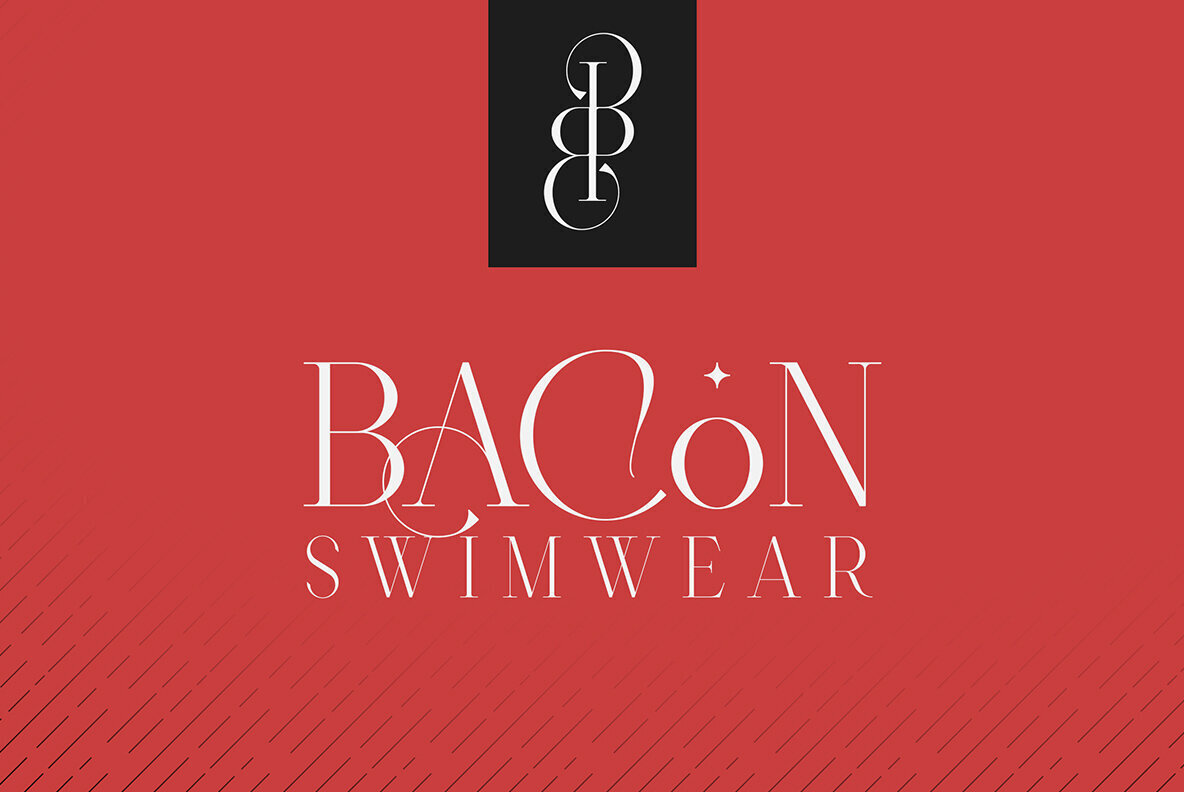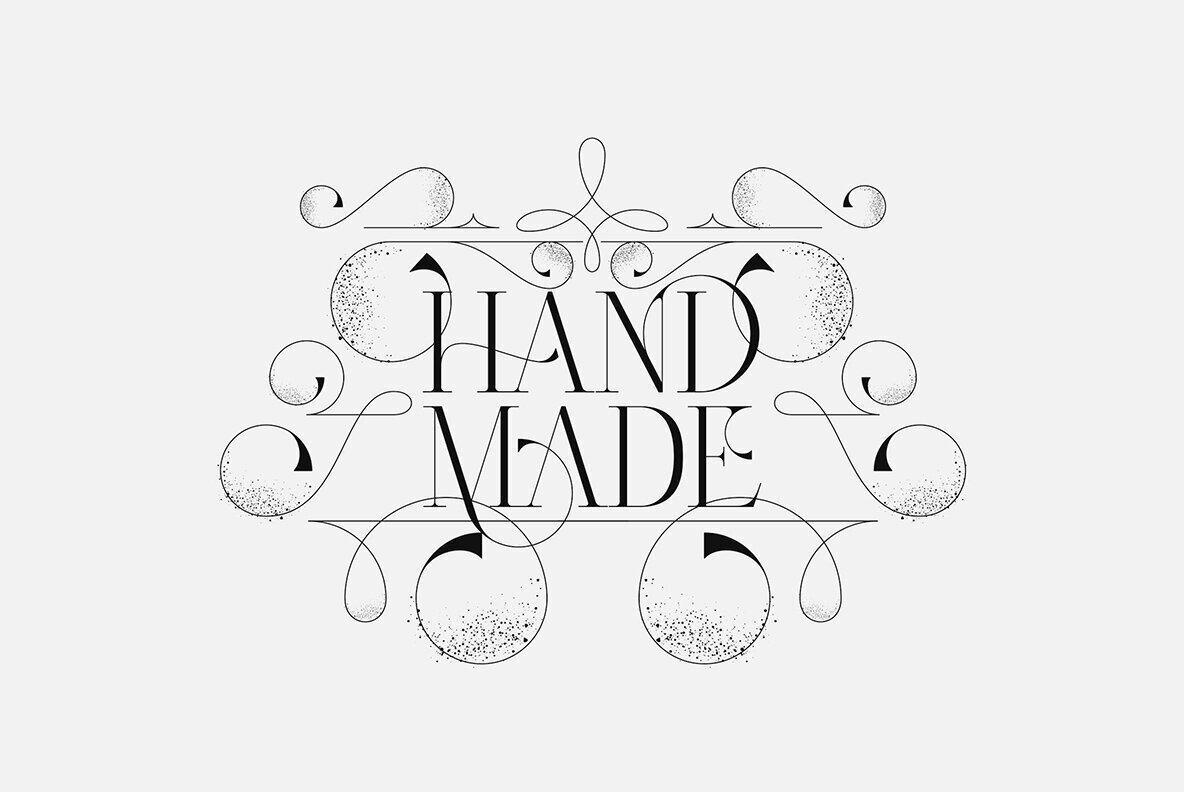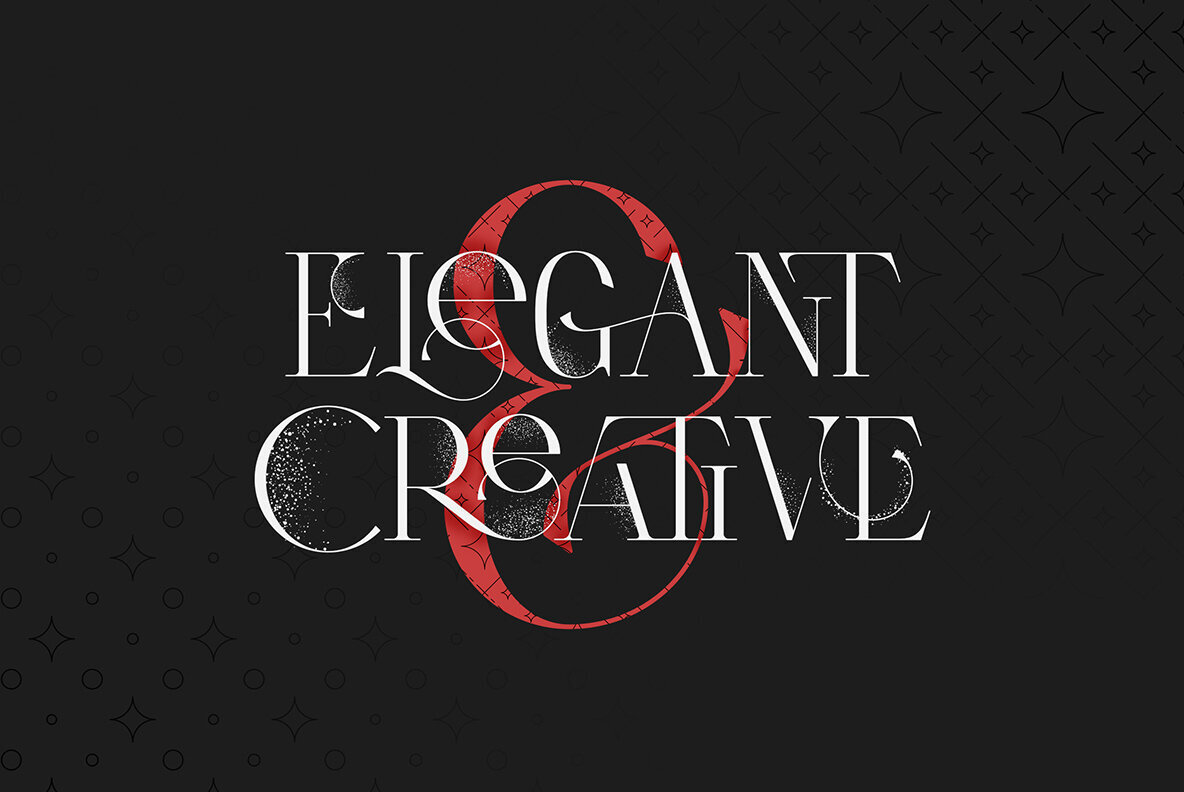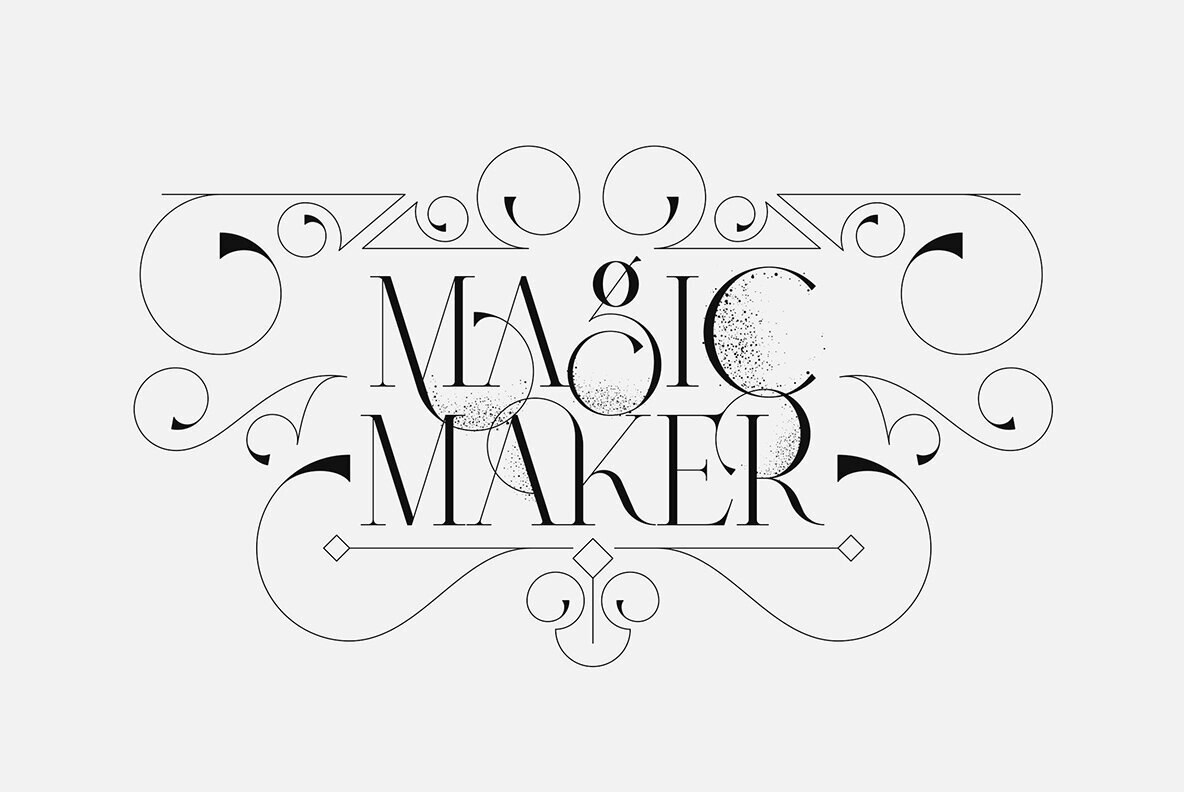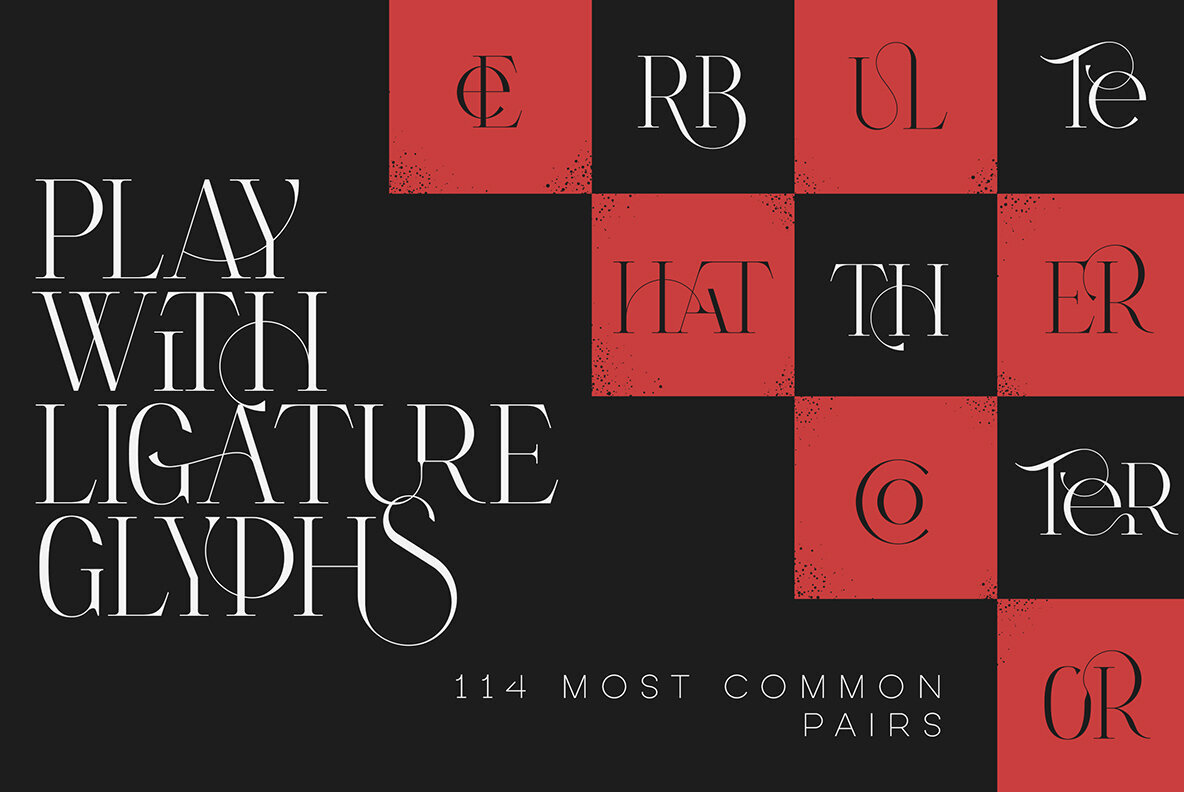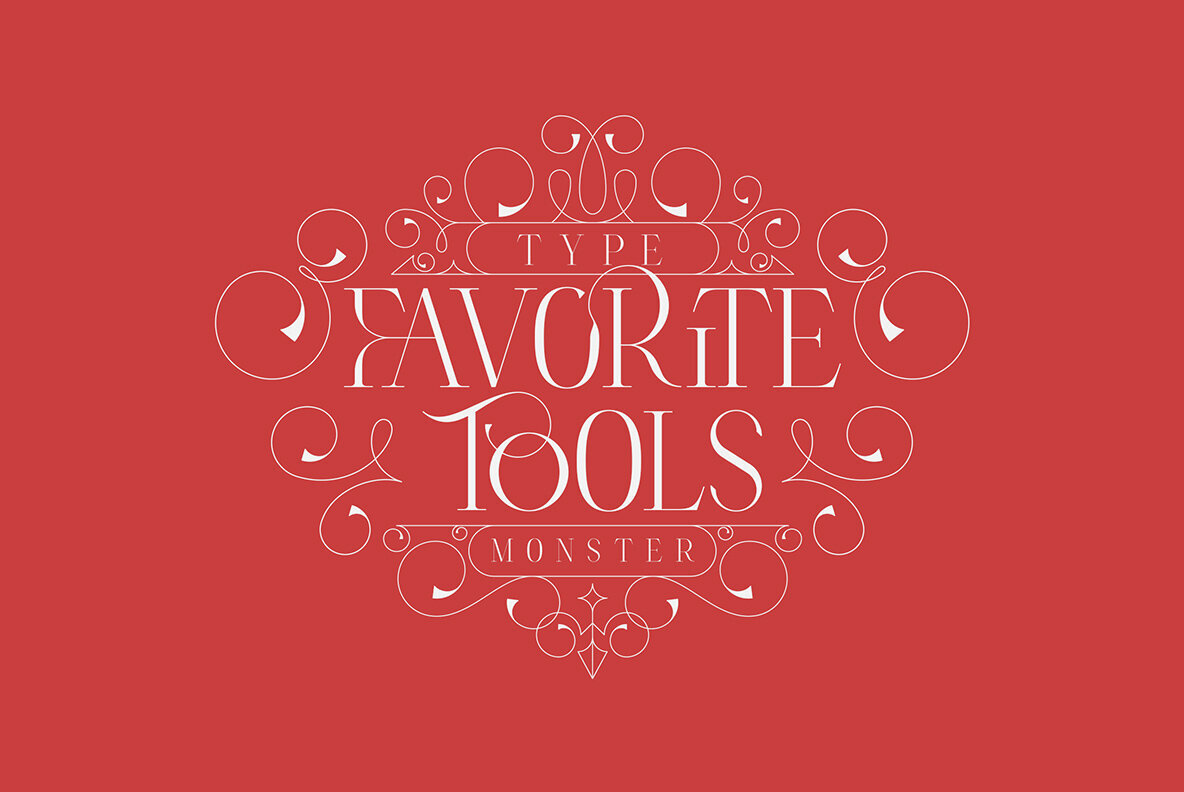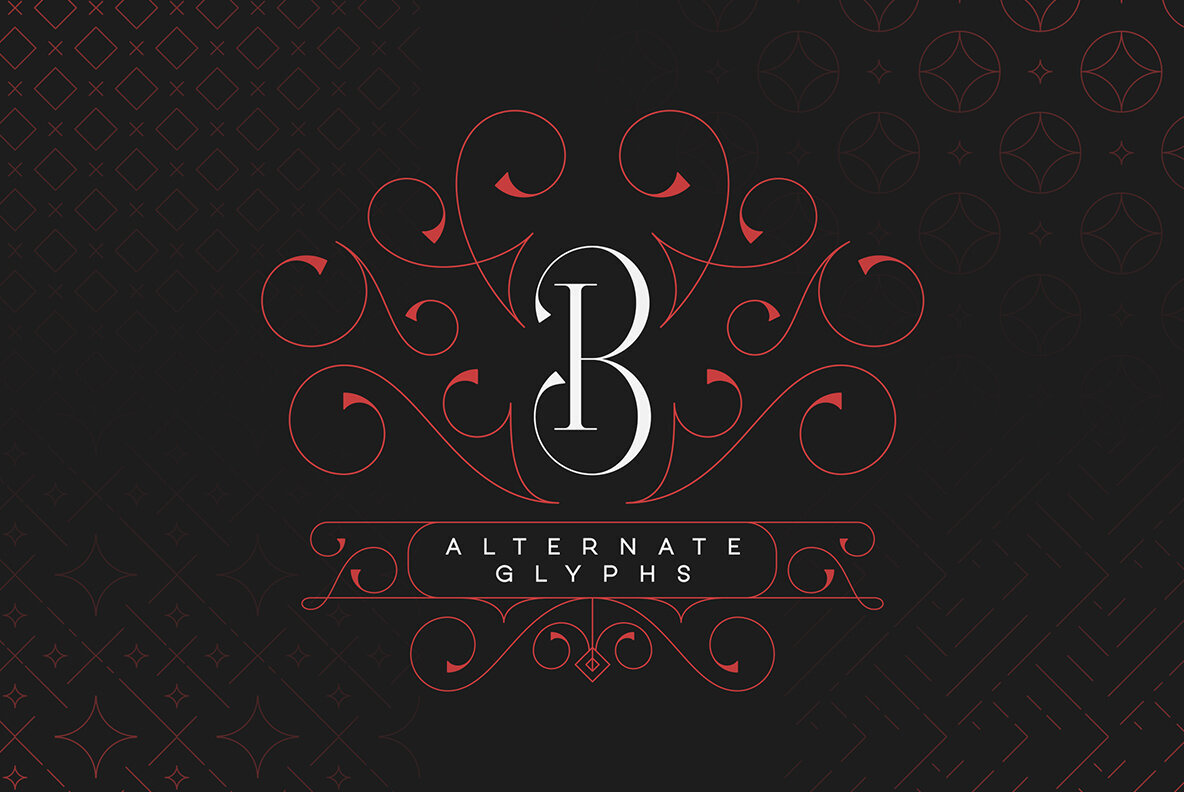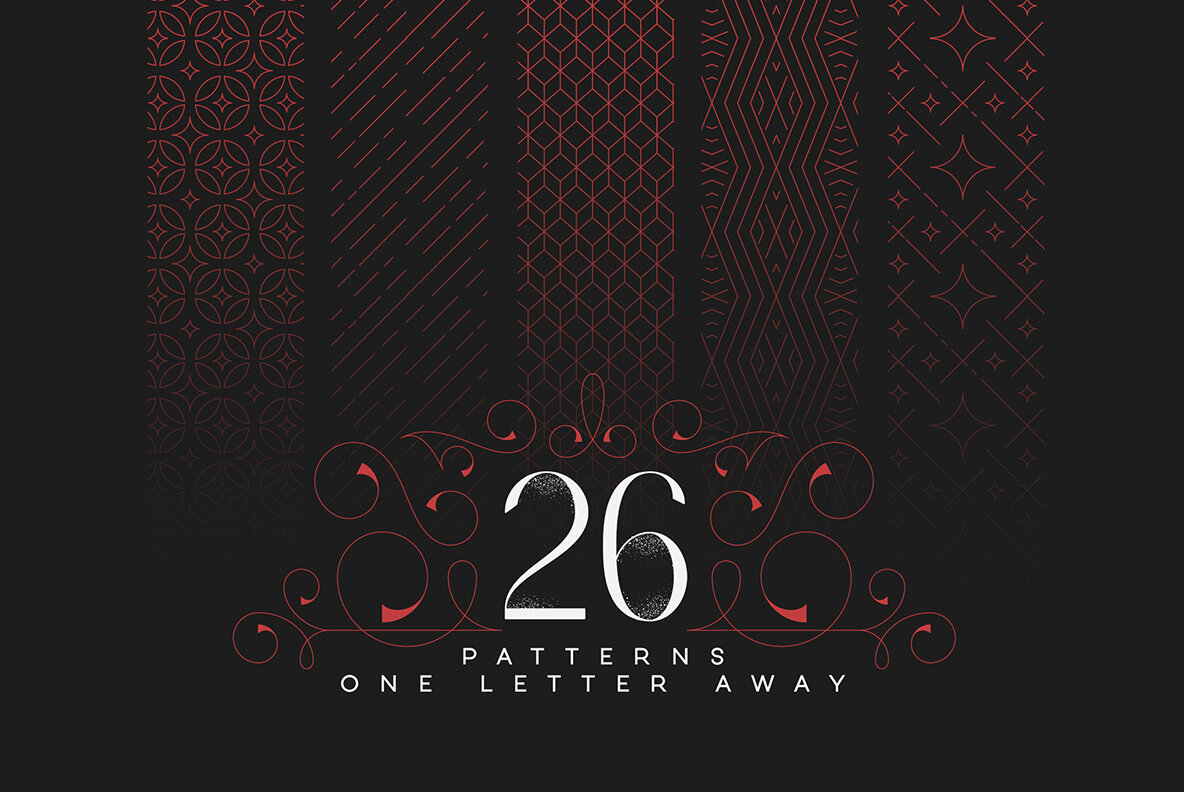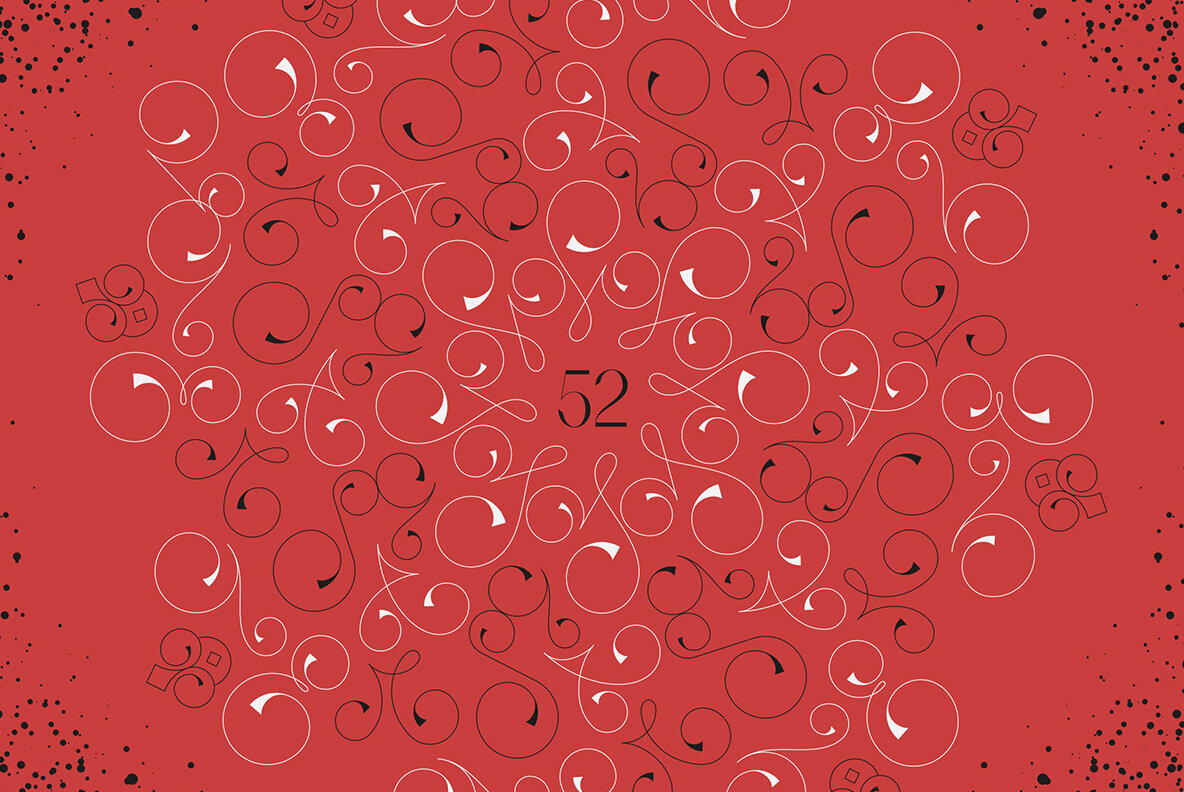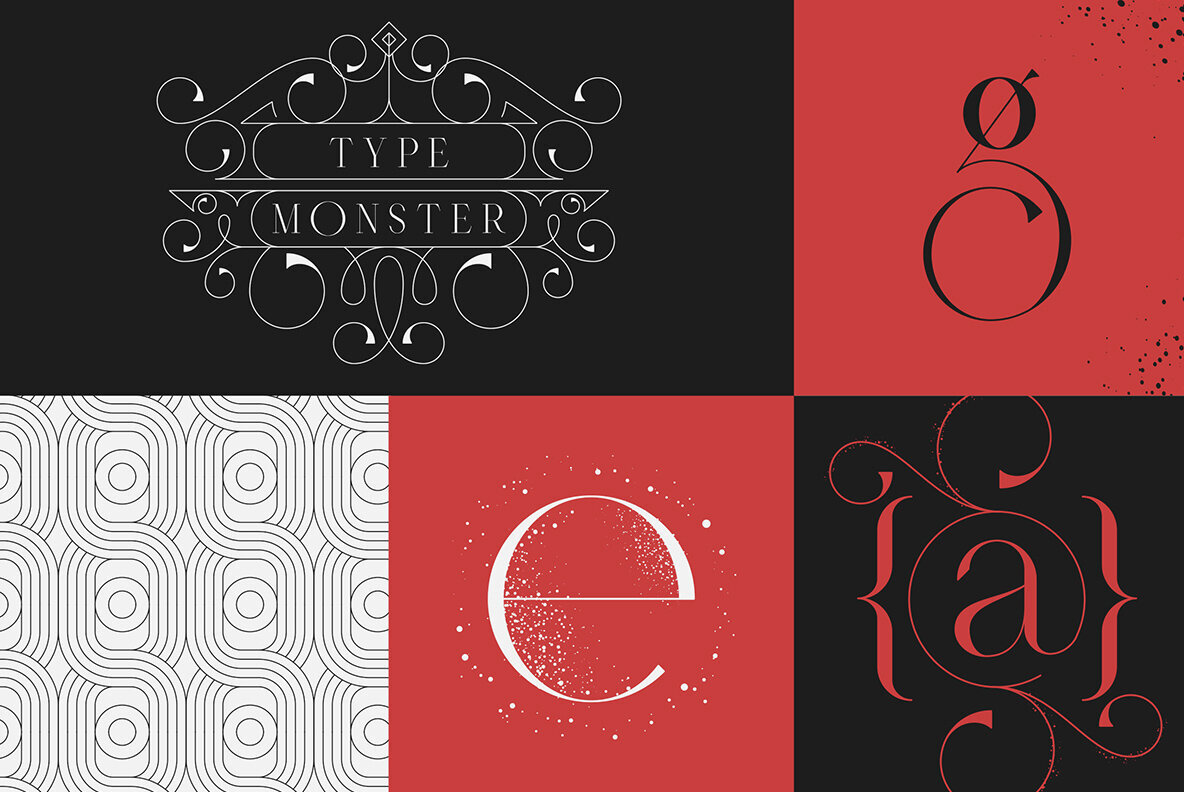
Type Monster Font
"Type Monster" is a sophisticated serif font that harmoniously blends classic styles with modern artistry. This meticulously crafted typeface features 114 ligature glyphs, providing seamless connections between letters and imparting an elegant, custom-made feel to any text. The font includes alternate characters, allowing designers the flexibility to select the perfect style for various applications, including branding, editorial design, and invitations. Supporting 87 languages, "Type Monster" is designed to be accessible and user-friendly for a global audience. "Type Monster" extends beyond alphabets with an impressive collection of design elements: This font is a comprehensive toolkit built with attention to detail, making it ideal for professional graphic design, personal projects, and commercial use alike. "Type Monster" offers endless possibilities to craft visually stunning and unique compositions. Languages supported include Afrikaans, Albanian, Basque, Danish, Dutch, English, Finnish, French, German, Indonesian, Italian, Polish, Portuguese, Spanish, Swedish, Turkish, Zulu, and many more. In Adobe InDesign or Illustrator, access alternate glyphs by selecting Window > Type & Tables > Glyphs. In Photoshop, choose Window > Glyphs, then in the Show menu, select Alternates for Selection. Double-click a thumbnail to swap out an alternate glyph. Note: Mockups and backgrounds used in promotional materials are not included.Type Monster: A Versatile Serif for Elegant Designs
Features and Flexibility
Complementary Design Elements